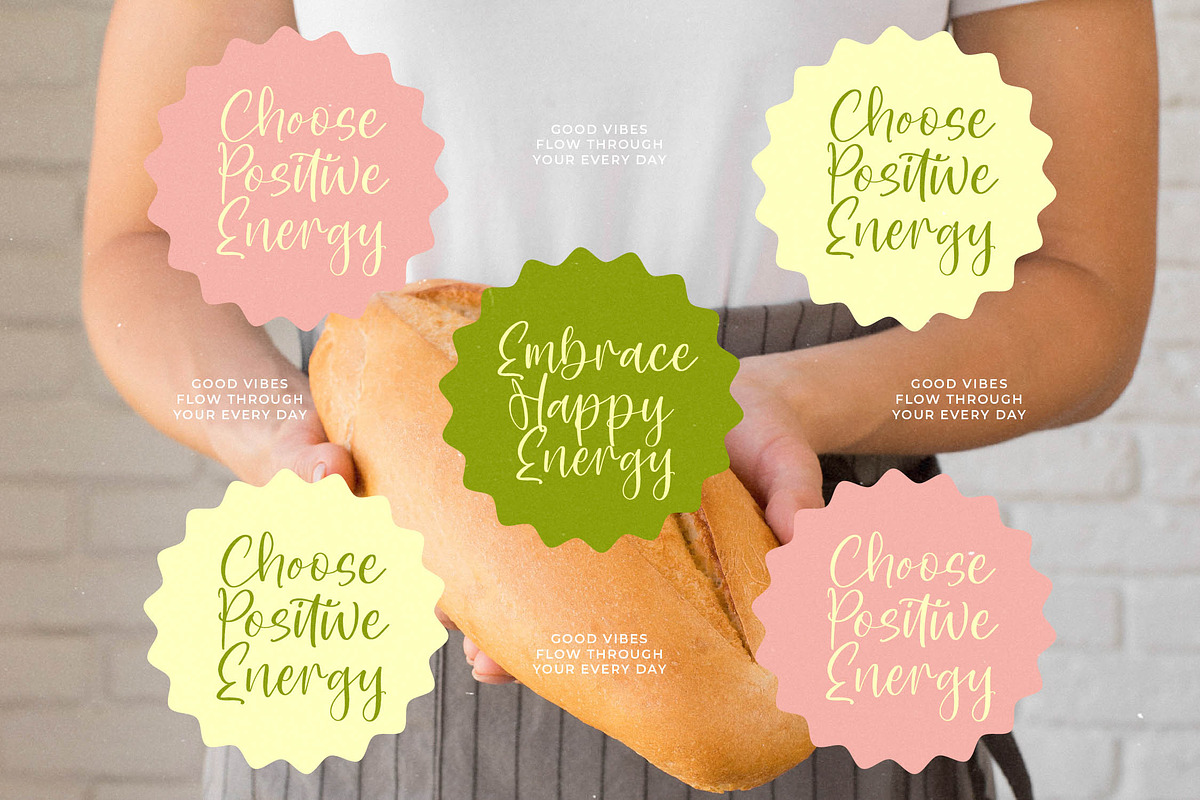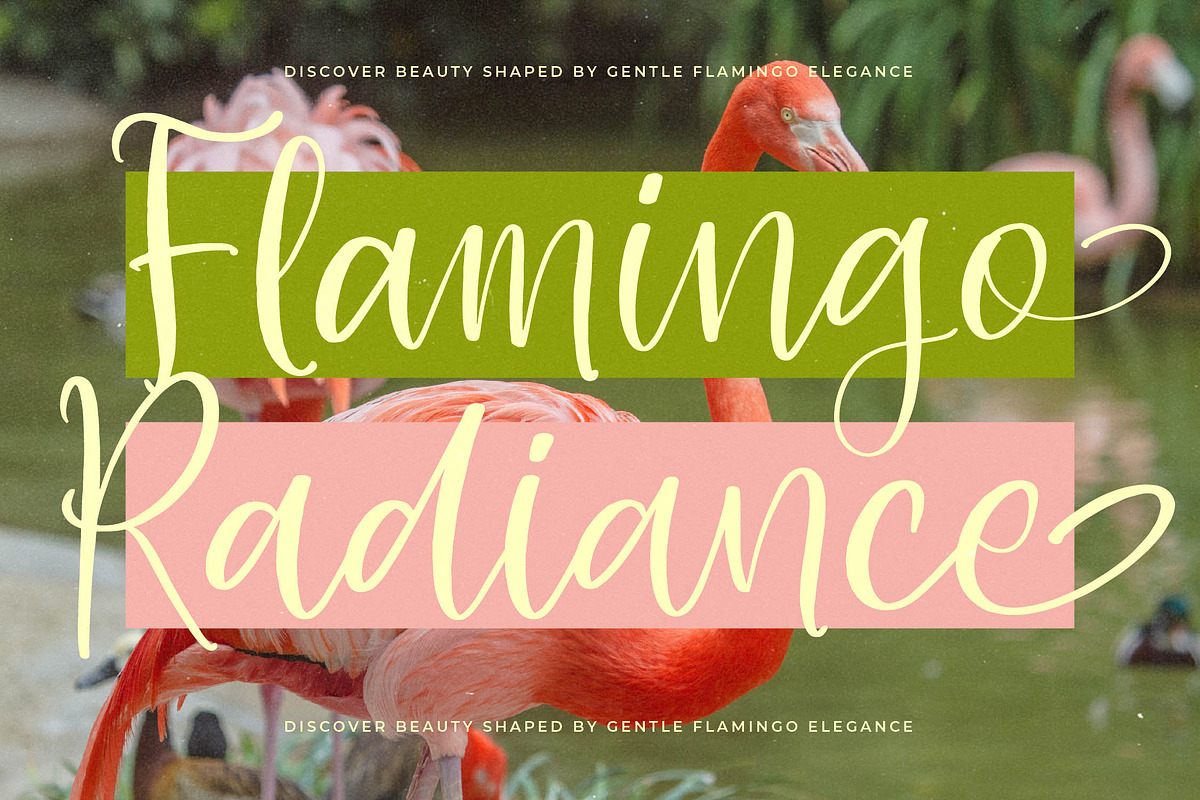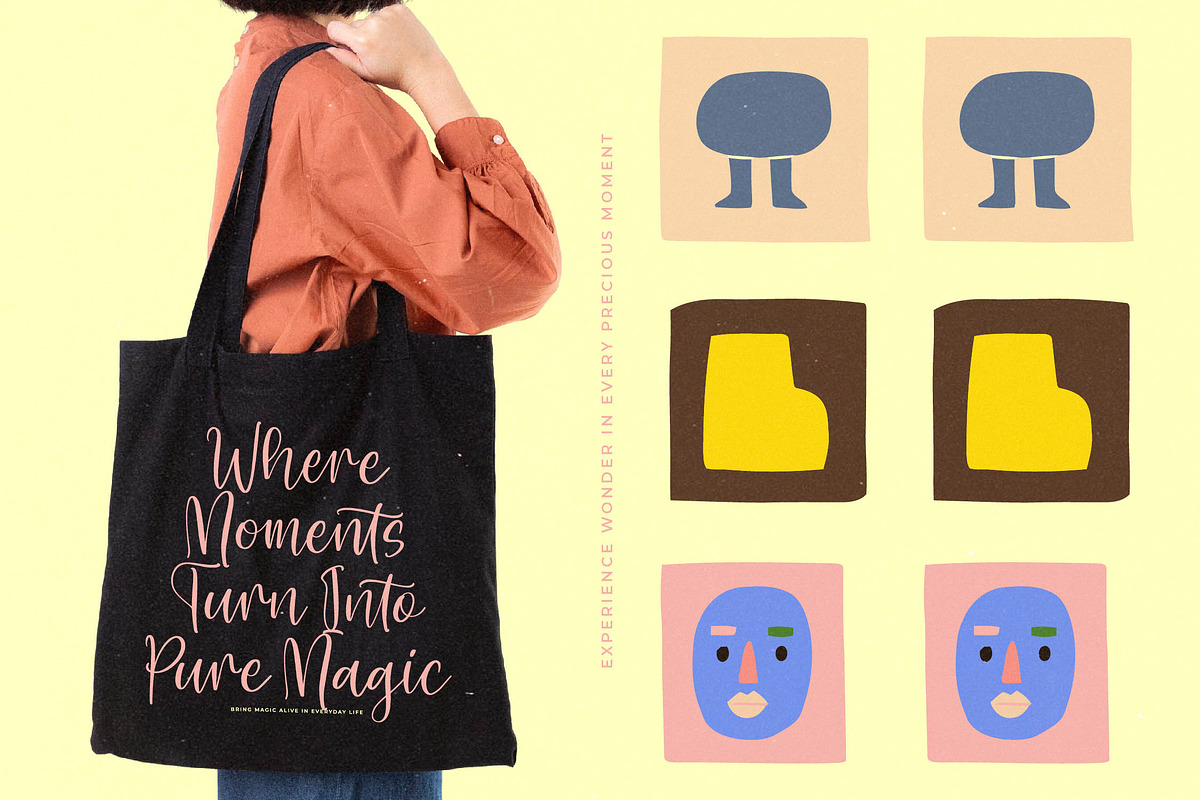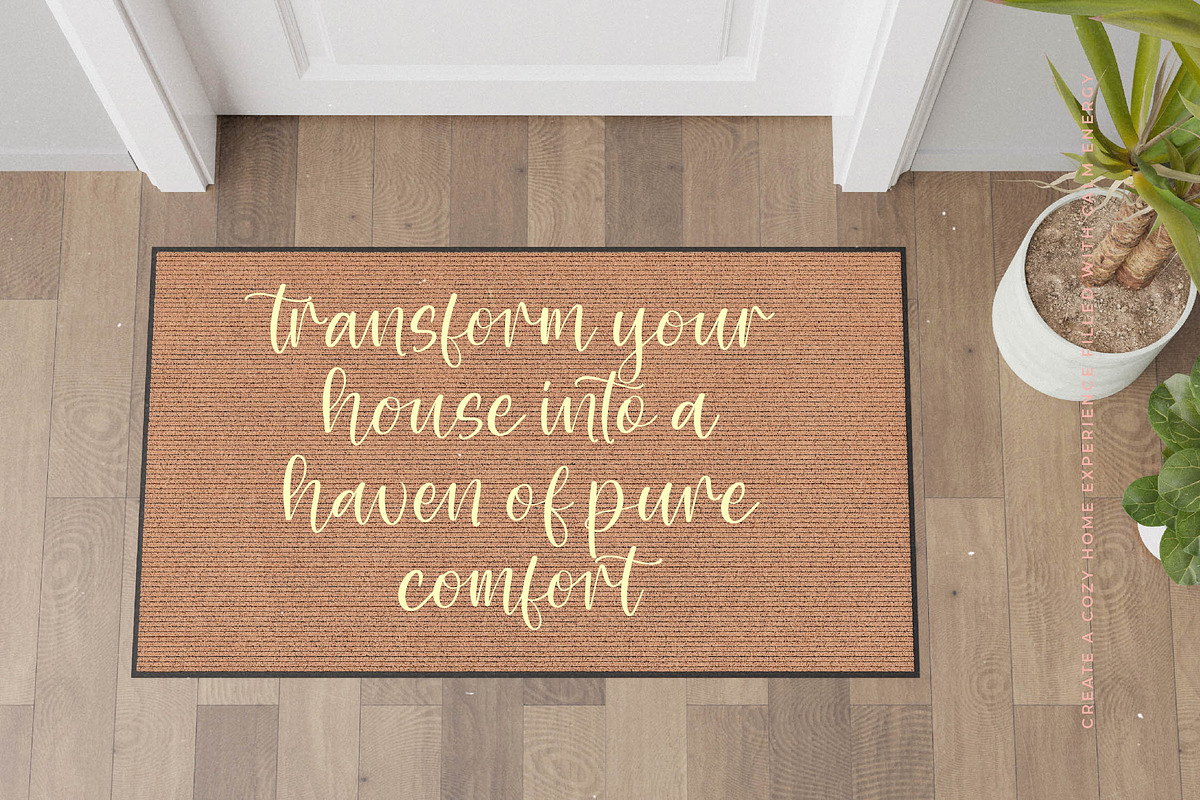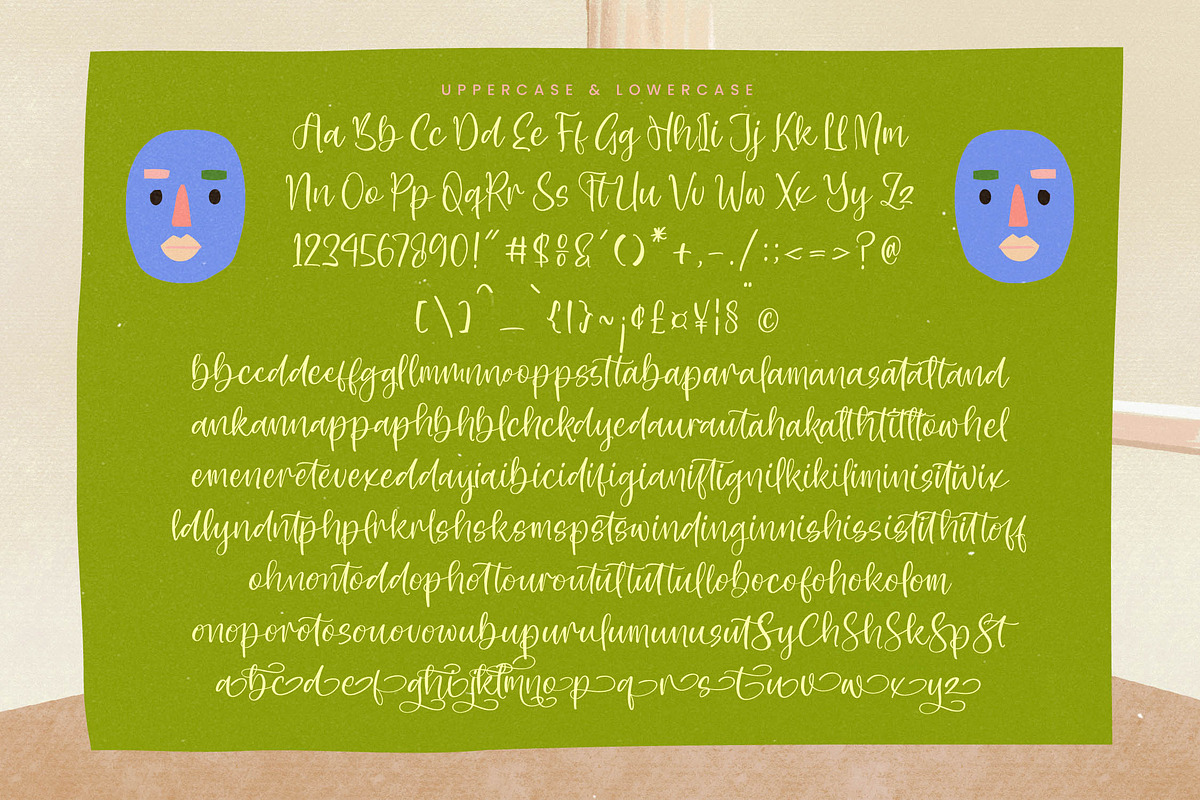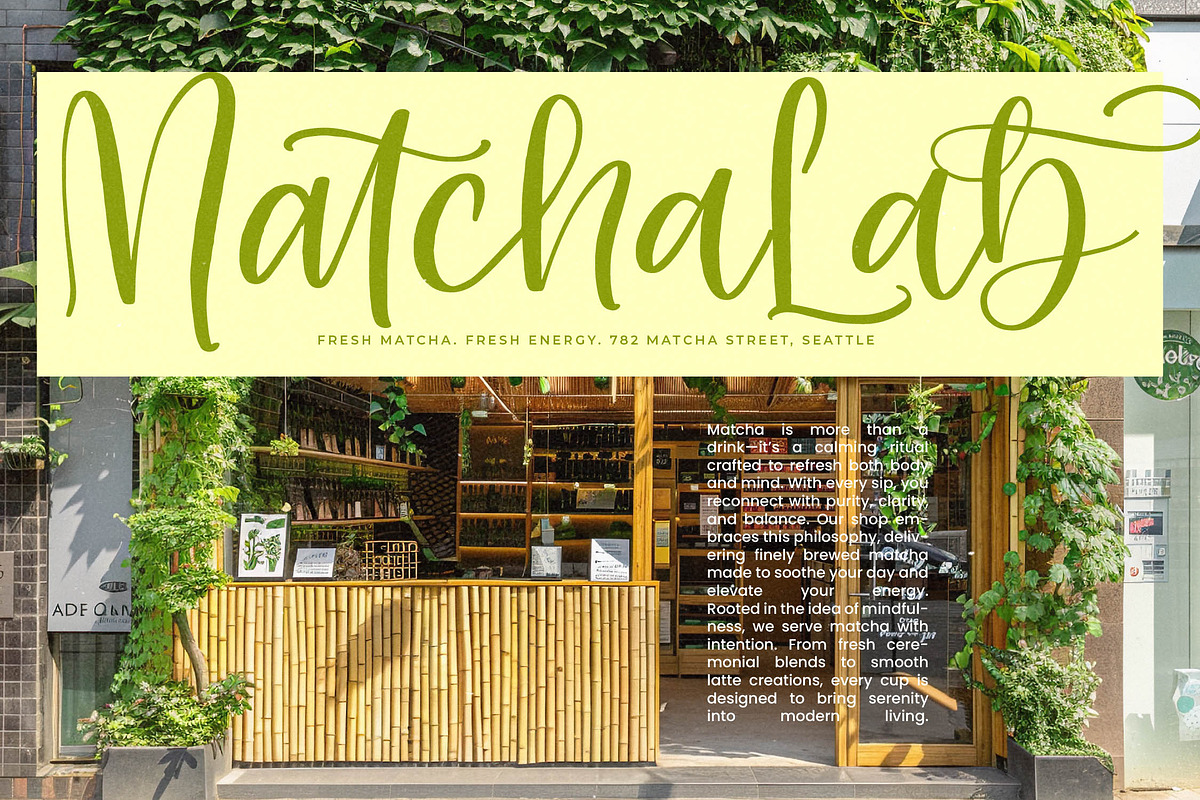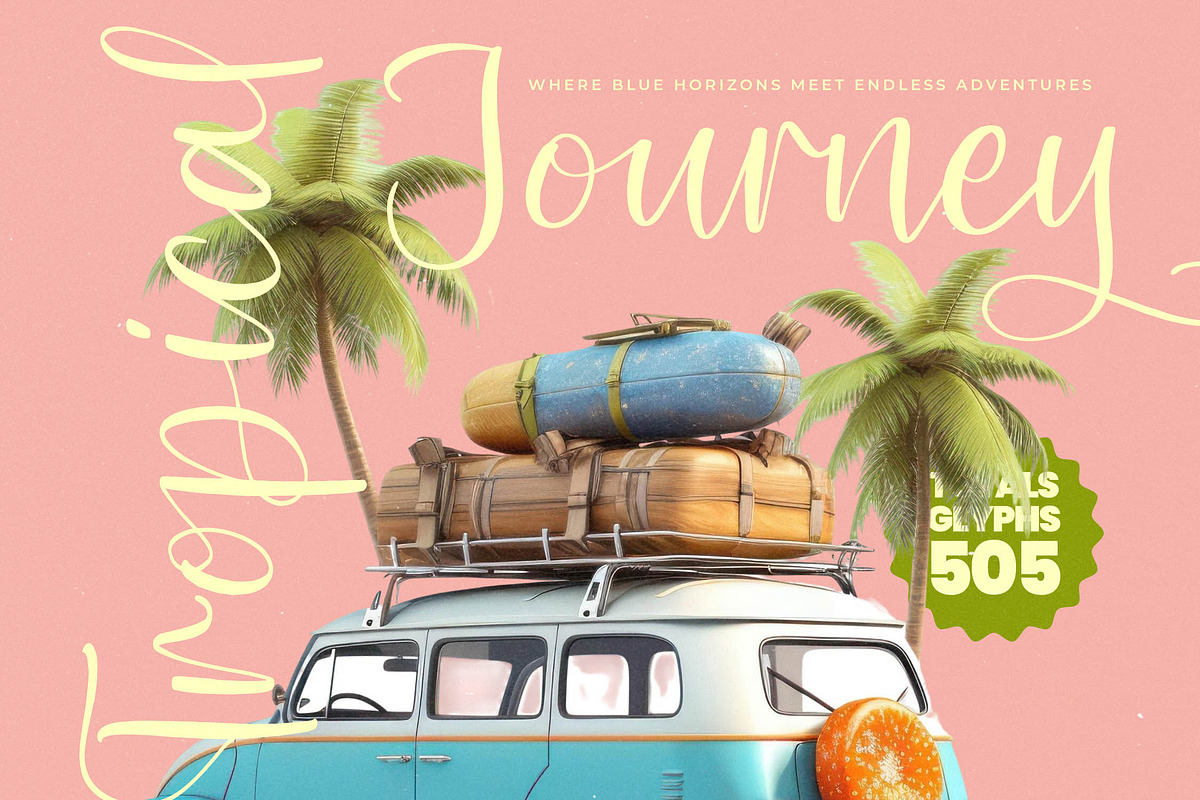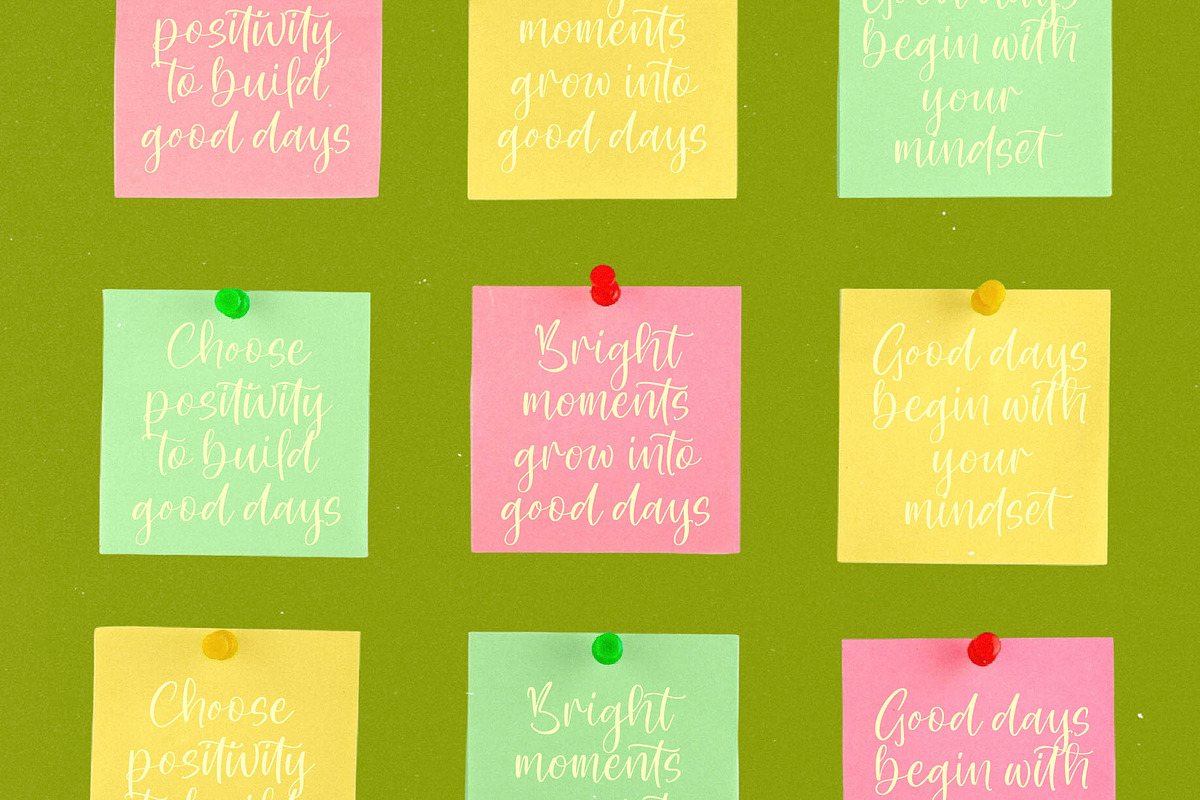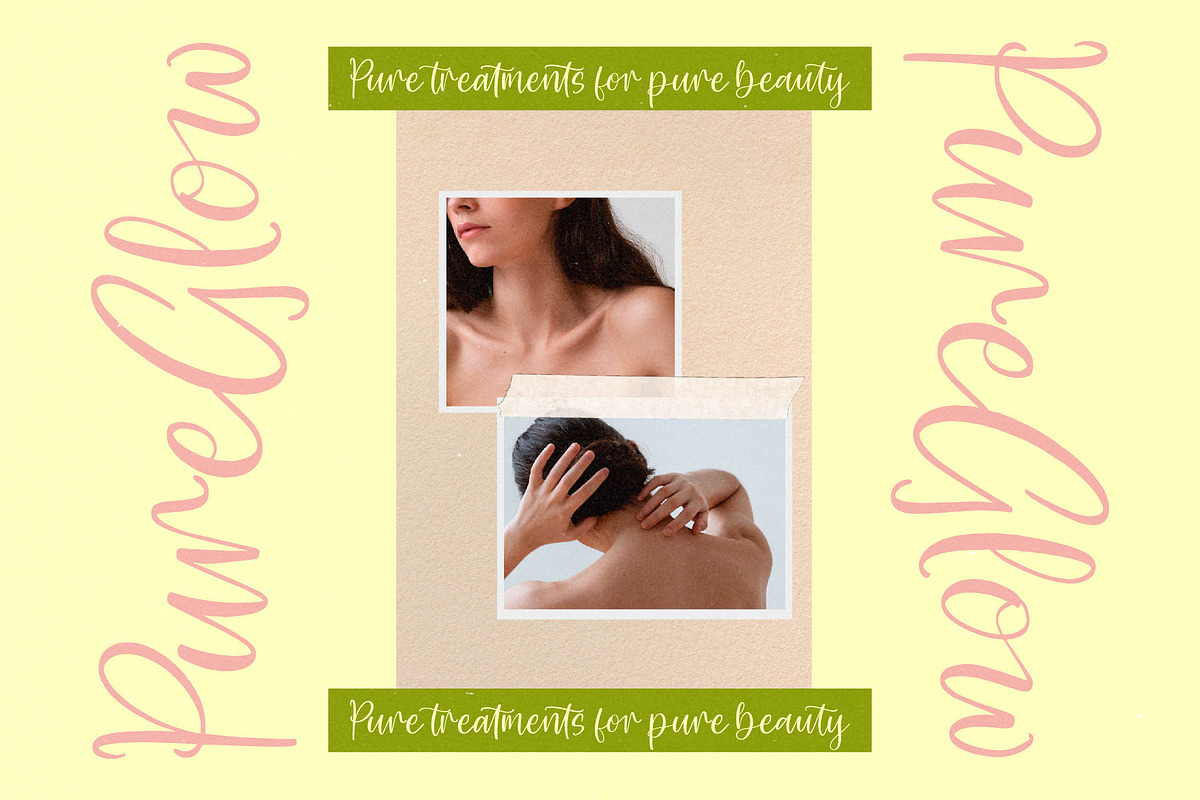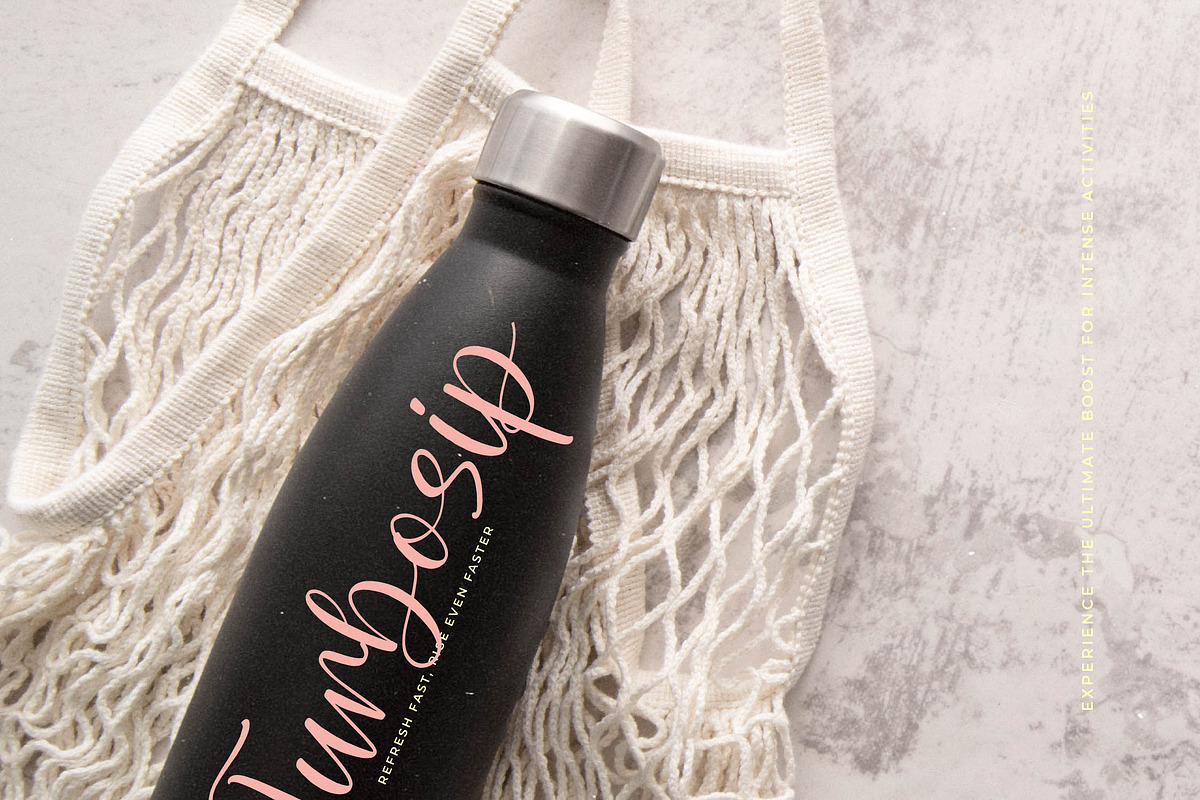
Shelter Natural Handwritten
Shelter Natural - Natural Handwritten Font , Shelter Natural is a smooth handwritten script font designed with flowing curves, soft strokes, and an organic pen-on-paper feel. Its gentle movement and natural elegance make it perfect for modern branding, wedding invitations, feminine packaging, lifestyle quotes, social media posts, and heartfelt handwritten projects. The font carries a warm, personal touch that instantly adds authenticity and charm to any design.
Featuring 147 ligatures, 26 alternates, and a total of 505 glyphs, Shelter Natural offers extensive creative flexibility for crafting expressive letter combinations, signature-style logotypes, and beautifully fluid script layouts. Its natural handwritten rhythm and graceful letterforms make it an ideal choice for designers seeking a refined, romantic, and modern handwritten font.